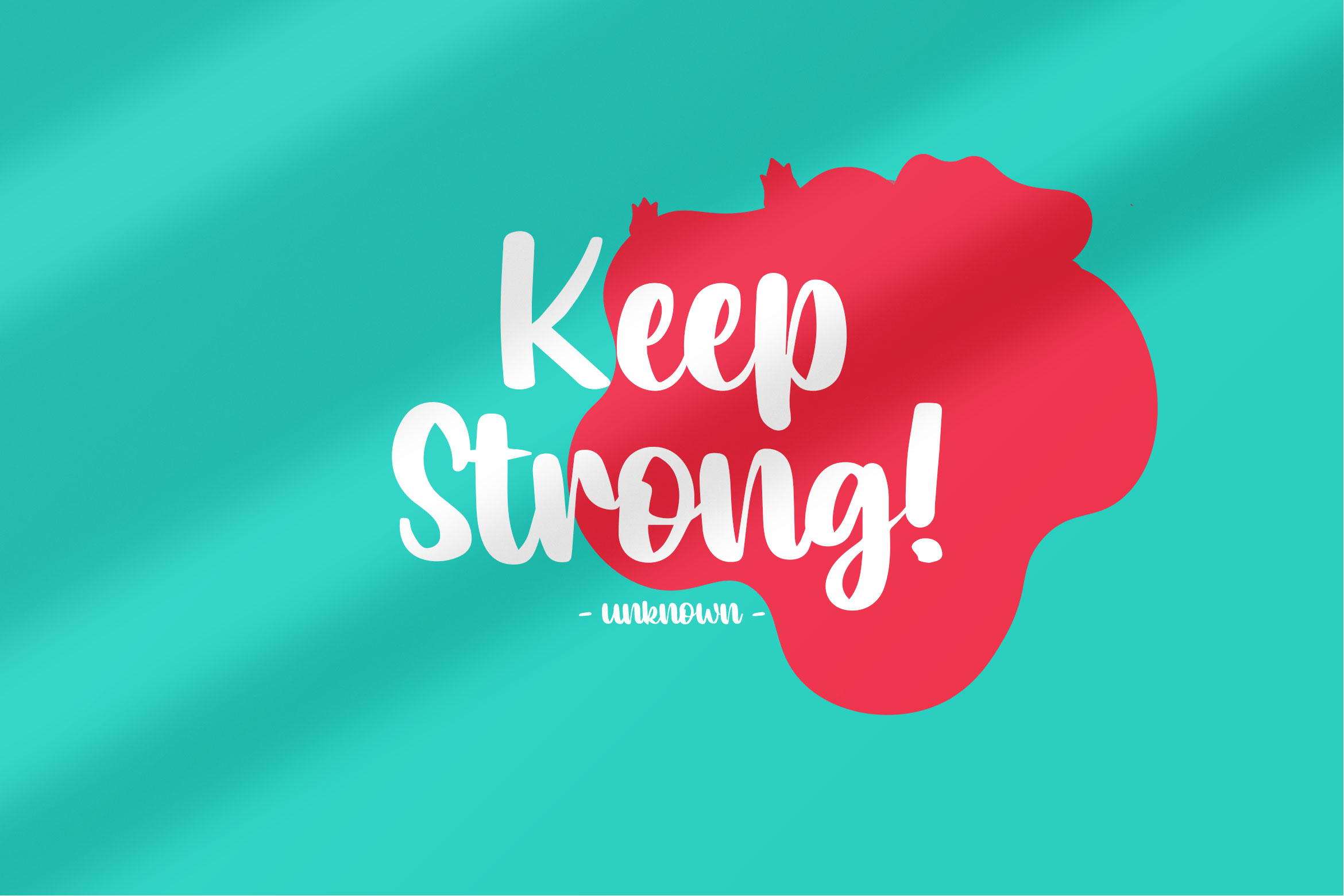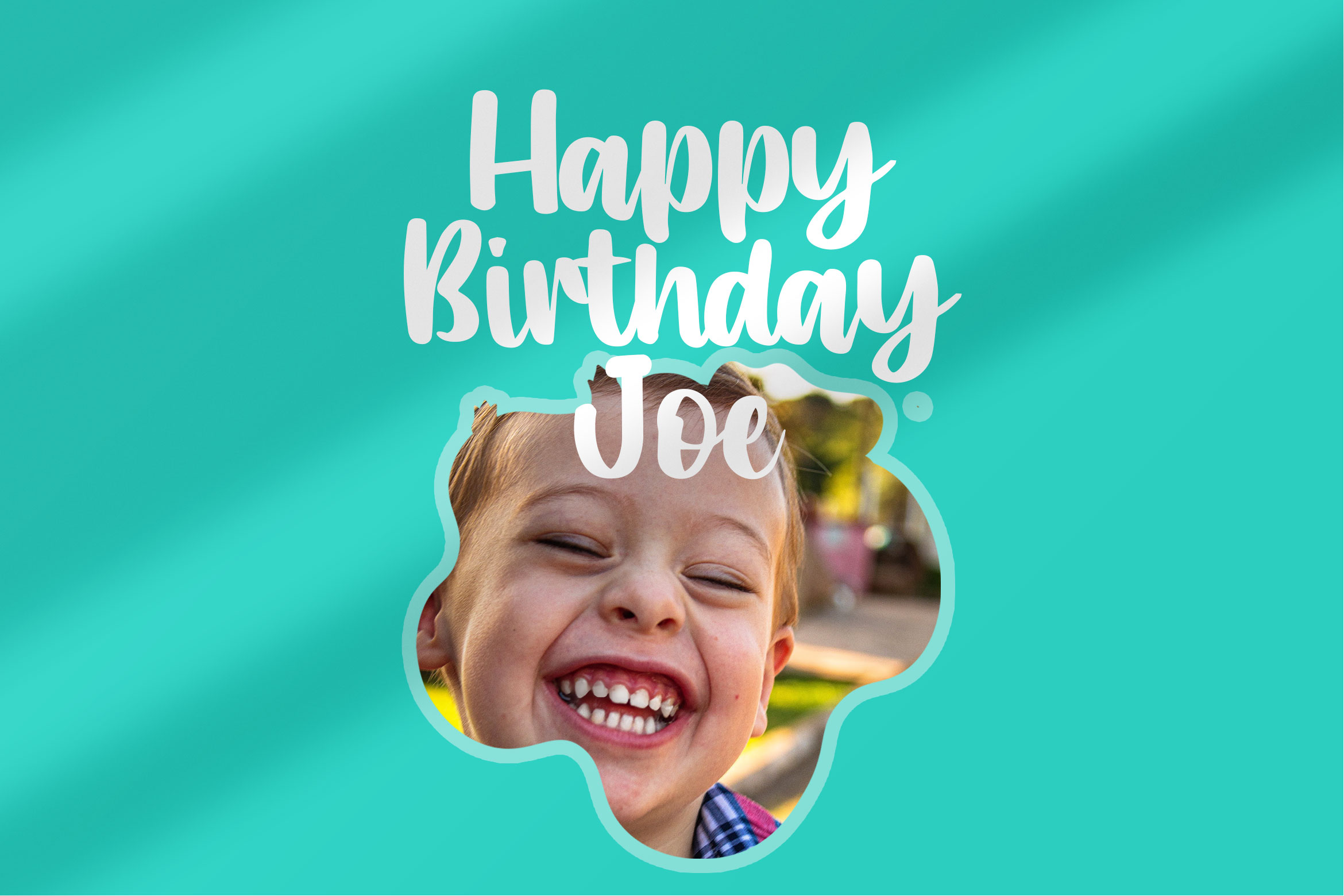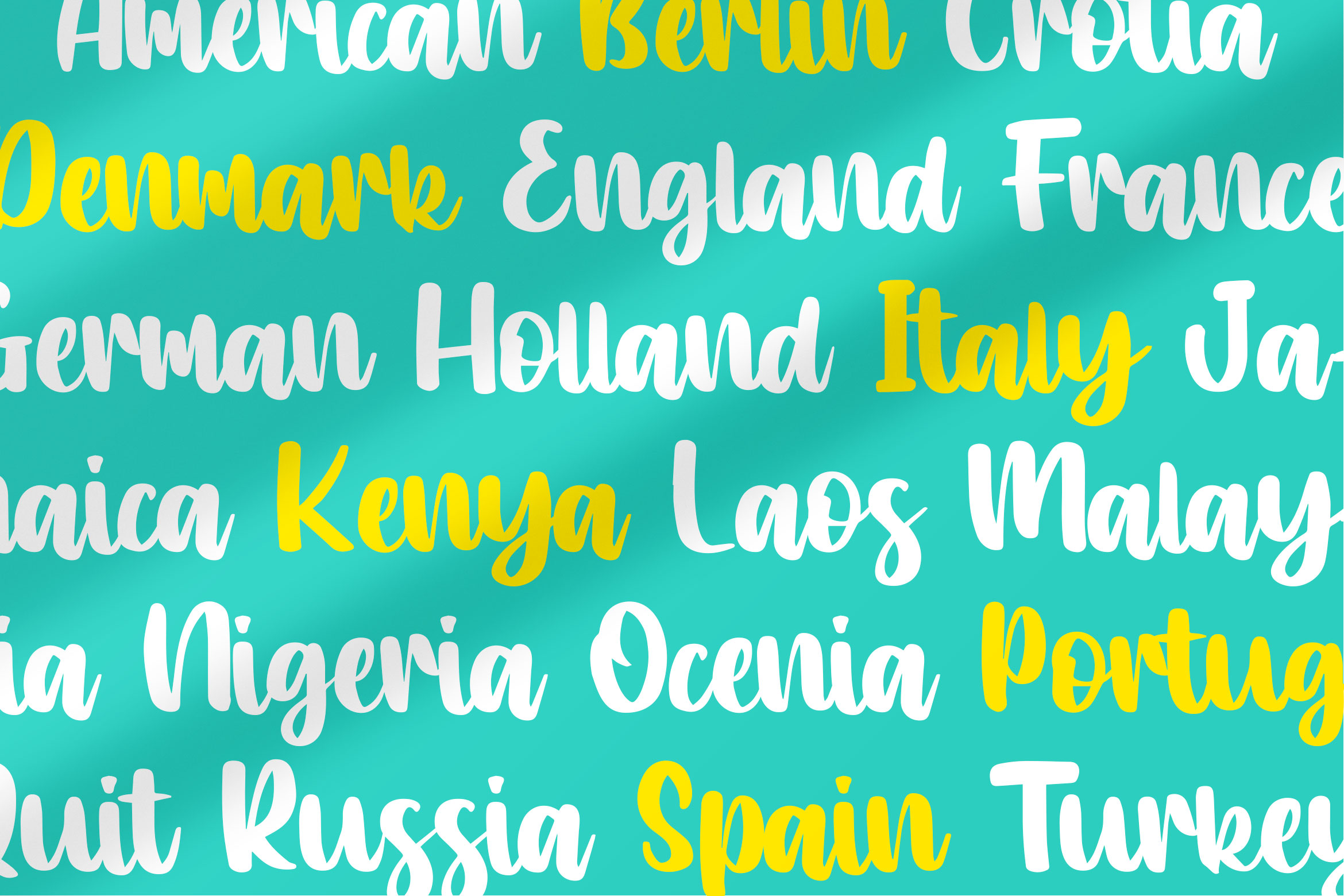
Bright Fairy Font
Bright Fairy Font is handwritten script font. It has casual, classy, and Cool. It’s a great font for fashion, apparel projects, signature, album cover, logo, branding, magazine, social media, & advertisements, but also works great for other projects.